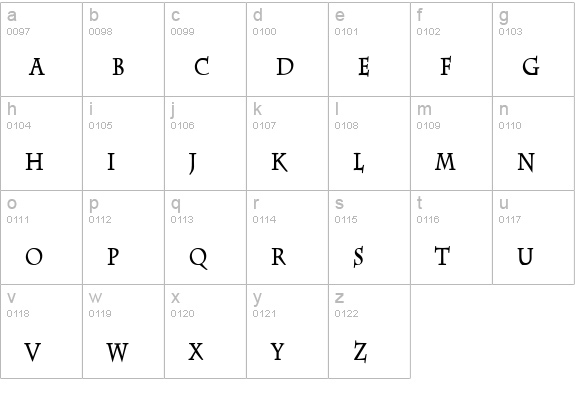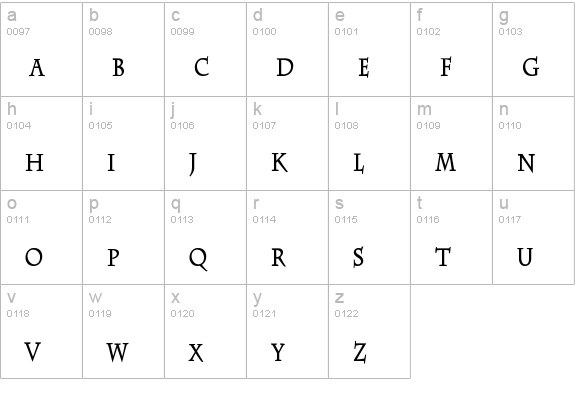
Chaz Thin Bold Font Details
Chaz Thin Bold is a delicate, low-contrast variant in the Chaz typeface family \xE2\x80\x94 well suited to fashion editorial, minimal branding, and high-contrast display.
Chaz Thin Bold font is a sleek and modern typeface that exudes sophistication and elegance. With its clean lines and bold strokes, this font is perfect for making a statement in any design project. Whether you're creating a logo, heading, or body text, Chaz Thin Bold will add a touch of class and style. What's even better is that Chaz Thin Bold font is available for free download at FontsMarket.com. You can easily access this versatile font and use it in your personal or commercial projects without any restrictions. Don't miss out on the opportunity to elevate your designs with the timeless beauty of Chaz Thin Bold font. Download it now and let your creativity shine!